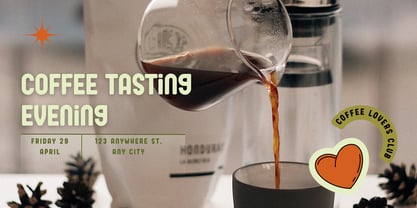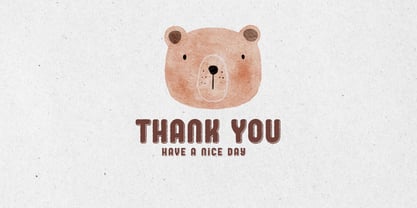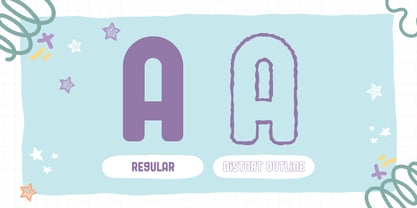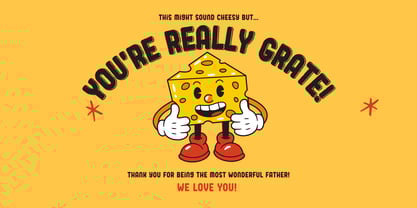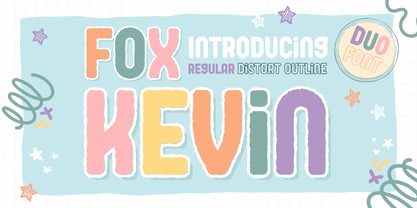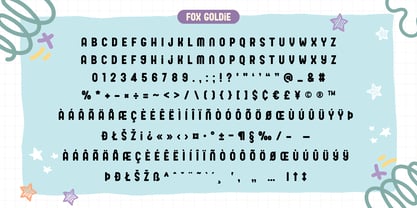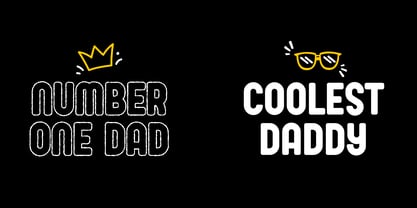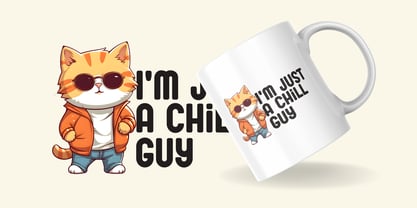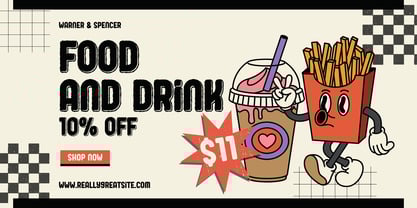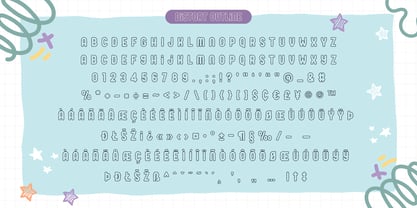
Fox Kevin
The Fox Kevin Font Family was designed by Rattana Rattanawan and published by Fox7. Fox Kevin contains 2 styles and family package options. More about this family
Fox Kevin and Fox Kevin Distort Outline fonts are a cool and playful display font that adds a captivating and energetic touch to your designs. Perfect for use in publications, menus, logos, business cards, or even printed on t-shirts, these fonts exude uniqueness. Its main feature is its vibrant and expressive design, allowing you to create attention-grabbing headlines, t-shirt typography, banners, product labels, and more.